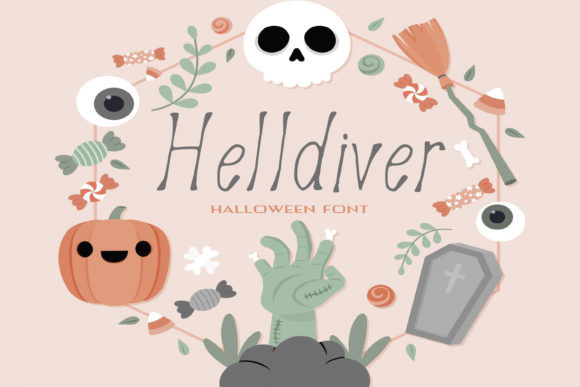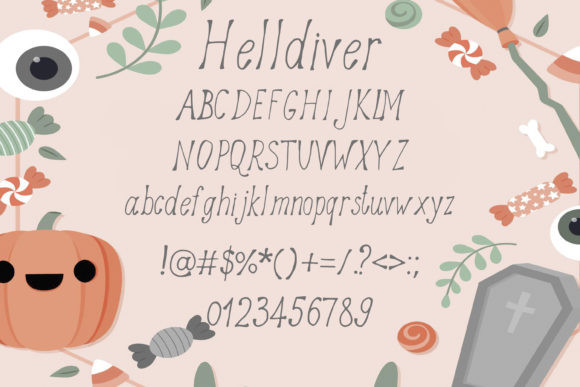
Helldiver Font
Helldiver is a simple and thin lettered handwritten font. A bit spooky, this font will create the authentic Halloween atmosphere that you seek to attain for each of your crafting designs.